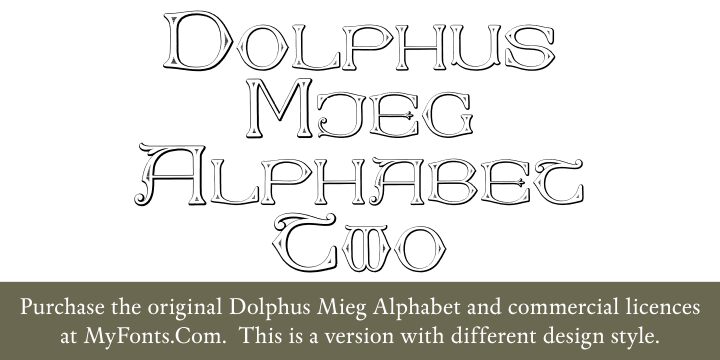
Dolphus-Mieg Alphabet Two by Iza W of Intellecta Design is a free decorative outlined display font with the air of an engraved Victorian alphabet. Its tall, open capitals combine fine interior lines with flared serifs and softly pinched curves. Small hatched shadows and occasional curling flourishes give the lettering its period detail.
Victorian-inspired publishing is the clearest setting for it, especially book covers and historical posters where the slender ornament can echo borders and engraved decoration. It also suits heritage packaging and theatrical event graphics, with the flourishes allowing each word to become part of an illustrated frame rather than serving as neutral type.
Dolphus Mieg Alphabet Two by Intellecta Design is a version with a different design in the set.